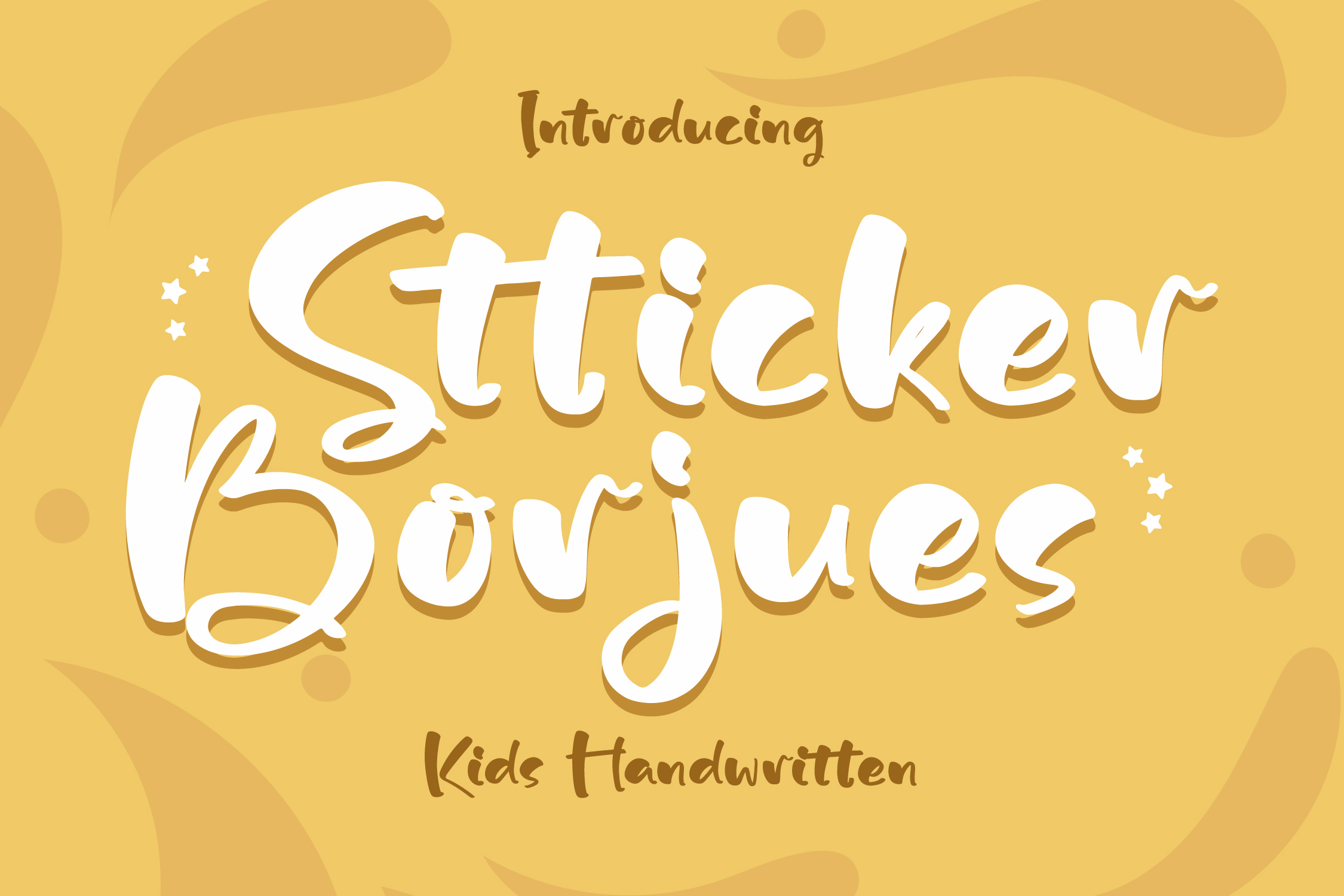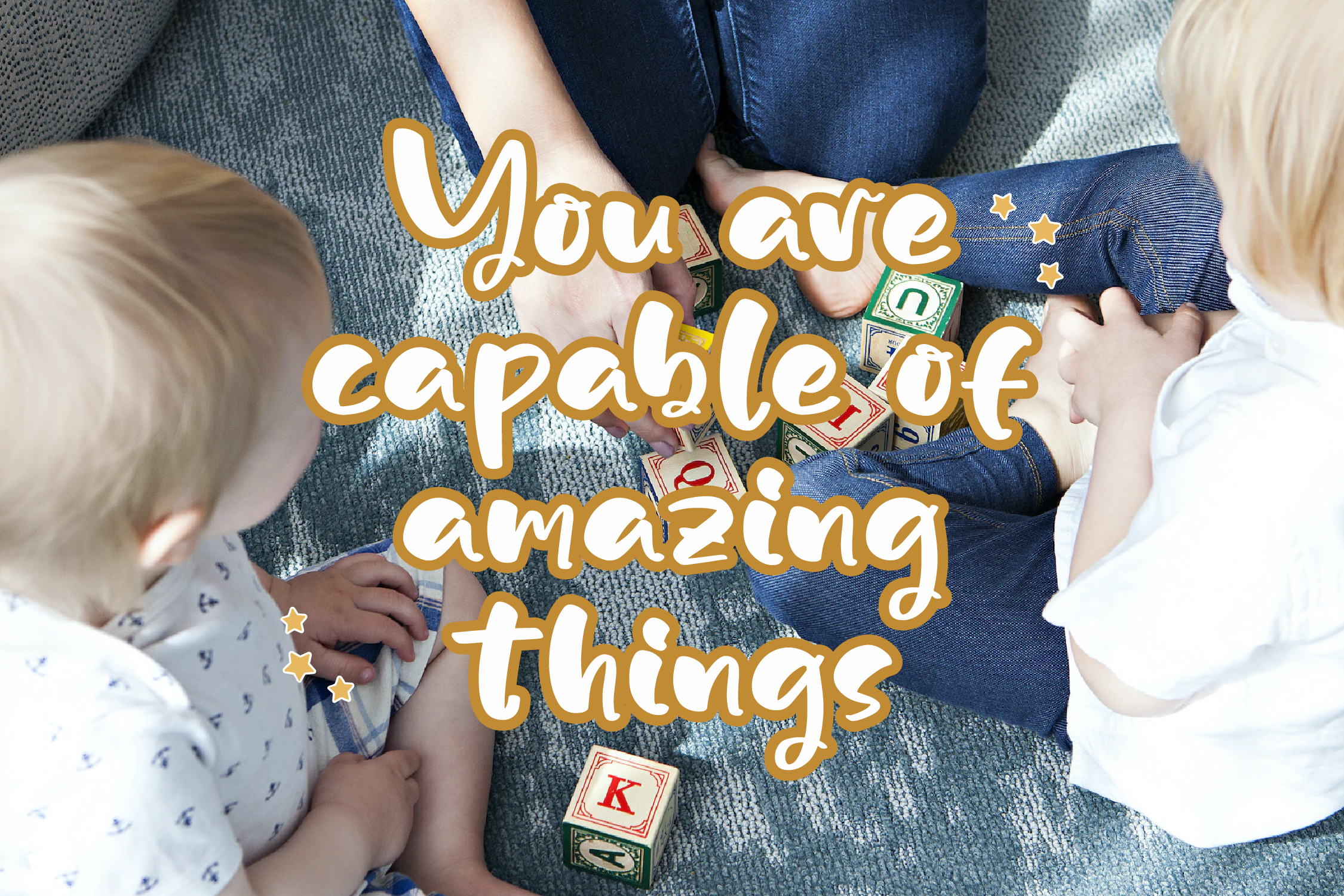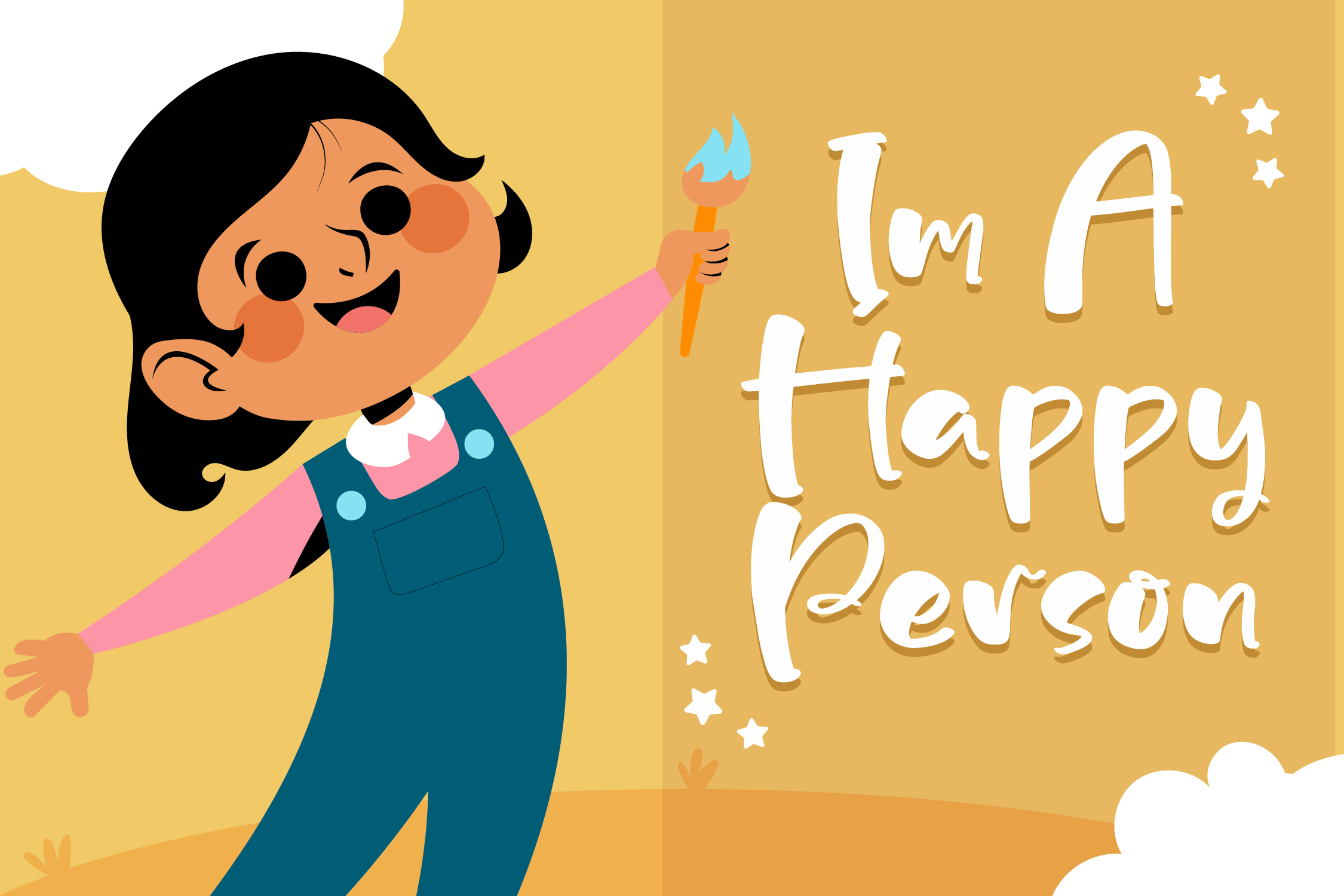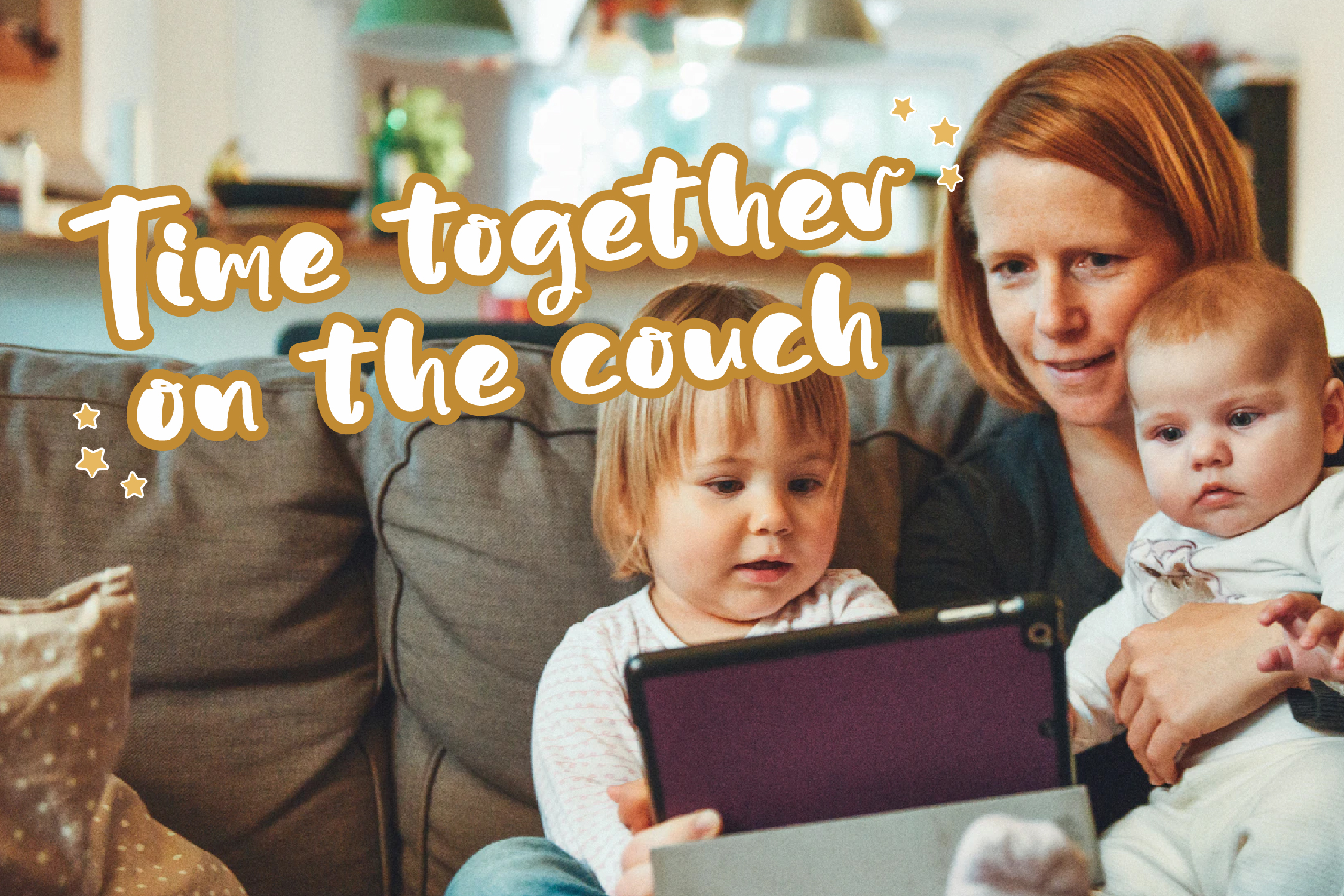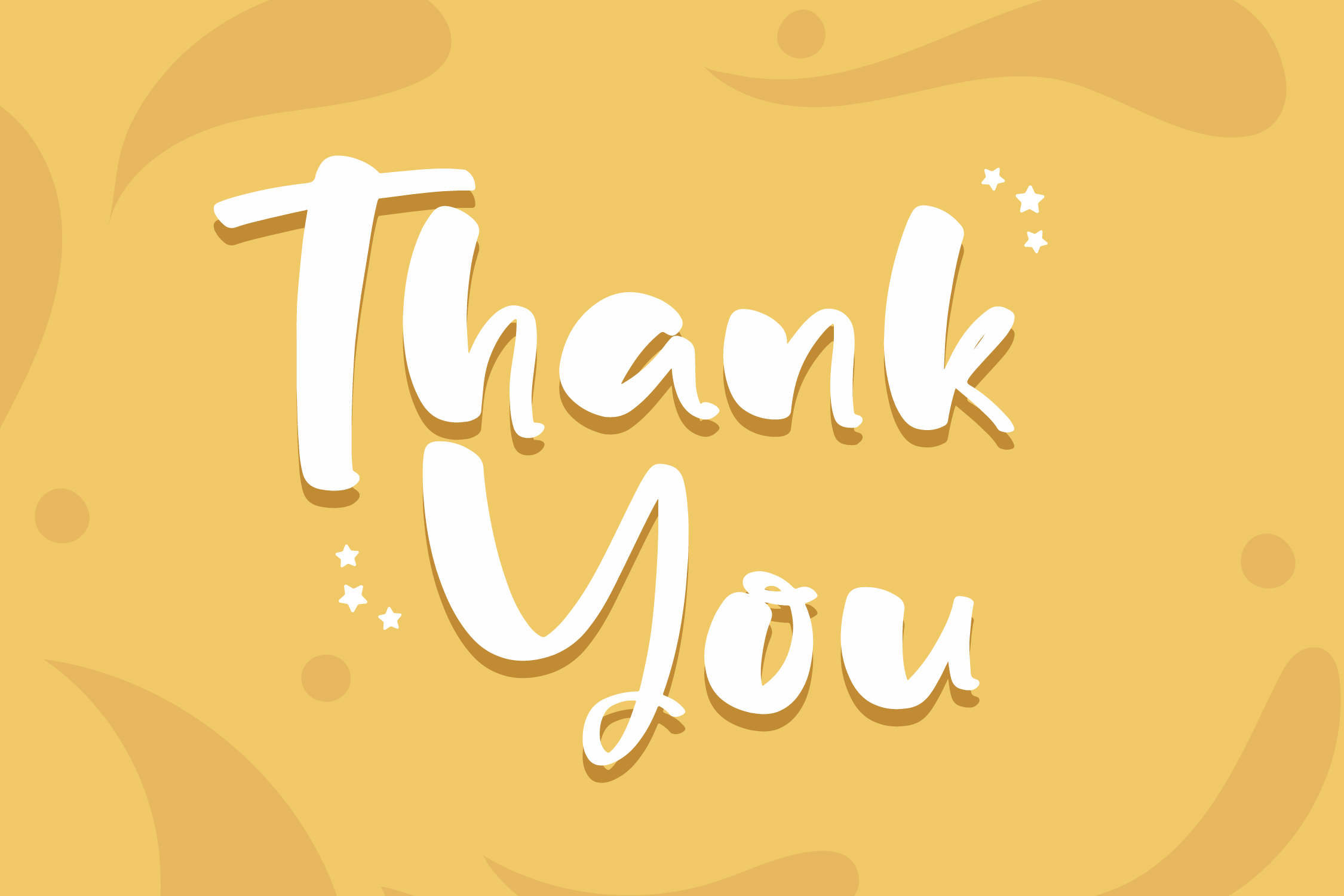
Stticker Borjues Font
Stticker Borjues Script Font is a Kids Handwritten Font, suitable for any projects such as: logos, branding projects, homeware designs, product packaging, mugs, quotes, posters, shopping bags, t-shirts, book covers, name card, invitation cards, greeting cards, label, photography, watermark, special events, and all your other lovely projects that need a beautiful script taste.